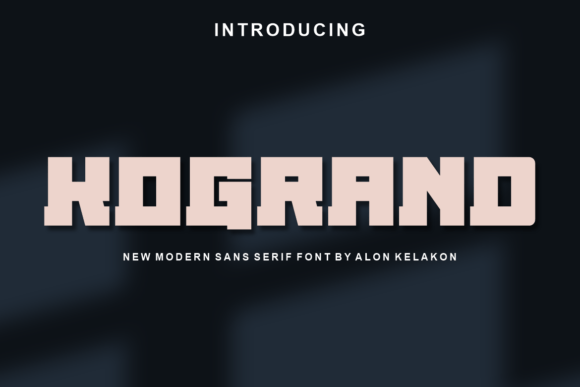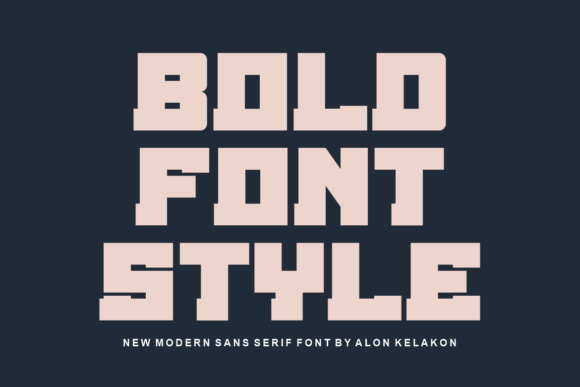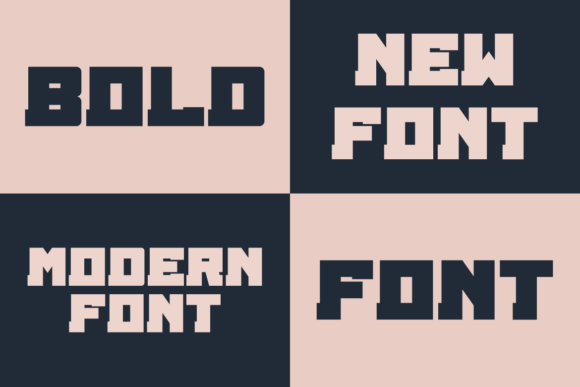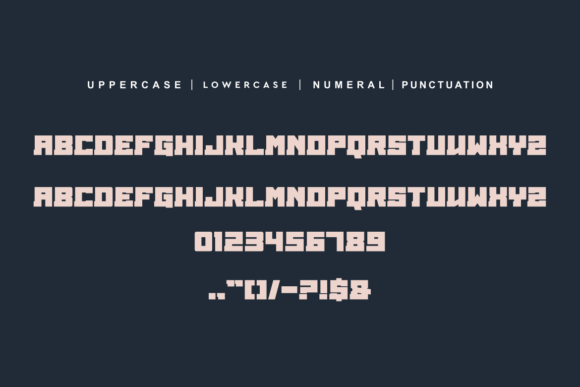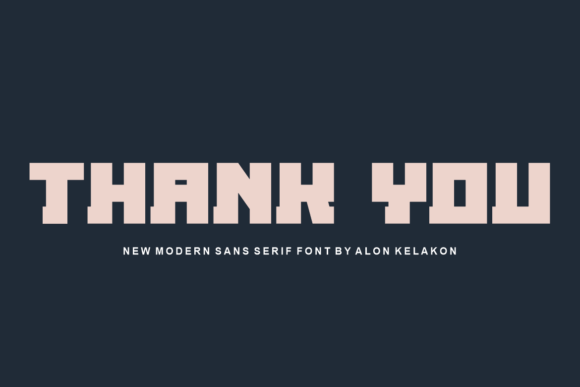
Kogrand
Kogrand: An Extremely Bold Slab Serif Font
Kogrand is an extremely bold slab serif font featuring capital letters. This versatile typeface brings commanding presence to various creative applications, from labeling and clothing to movie titles and album covers.
Key Features of Kogrand
• Extremely Bold Design: Offers thick, block-like serifs for maximum impact[4].
• Capital Letters: Features uppercase letterforms for strong presence.
• Display Appeal: Perfect for large-scale applications[3].
• Versatile Usage: Adapts well to numerous creative contexts.
Best Uses for Kogrand
Thanks to its bold characteristics, Kogrand works especially well for:
When using Kogrand in your designs, keep these tips in mind:
• Try it for headlines or display text to showcase its extreme boldness[3].
• Use its capital letters for maximum visual impact[4].
• Take advantage of its strong presence for attention-grabbing designs[5].
• Let its versatility enhance various creative applications.
To sum up, Kogrand is an excellent choice for designers seeking an extremely bold slab serif font. Its versatility makes it perfect for various creative projects. Whether you’re creating movie titles, designing clothing, or developing logos, Kogrand offers the perfect blend of boldness and versatility.
Furthermore, Kogrand’s distinctive design allows it to shine in contexts where maximum impact is key. From labeling to album covers, this font can elevate your projects with its commanding style. Also, its extremely bold appearance works particularly well in designs that aim to make a strong visual statement[4][5].
In conclusion, Kogrand truly captures the essence of bold display typography in slab serif design. Its ability to work across different applications shows how well it can serve various creative needs. Therefore, for those wanting to add a touch of extreme boldness to their work, Kogrand can enhance any design with its distinctive style. Ultimately, it’s perfect for designers aiming to make a powerful, attention-grabbing impact across creative projects.